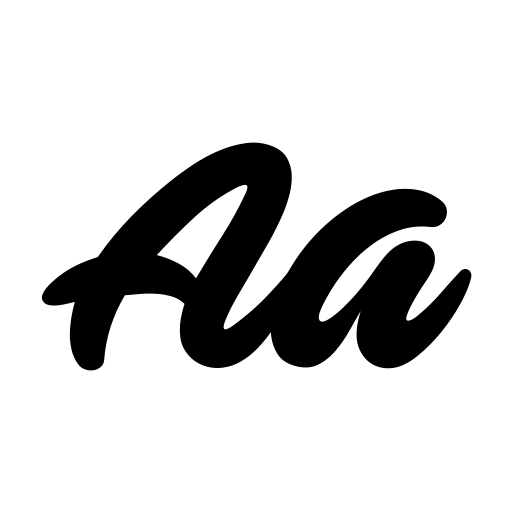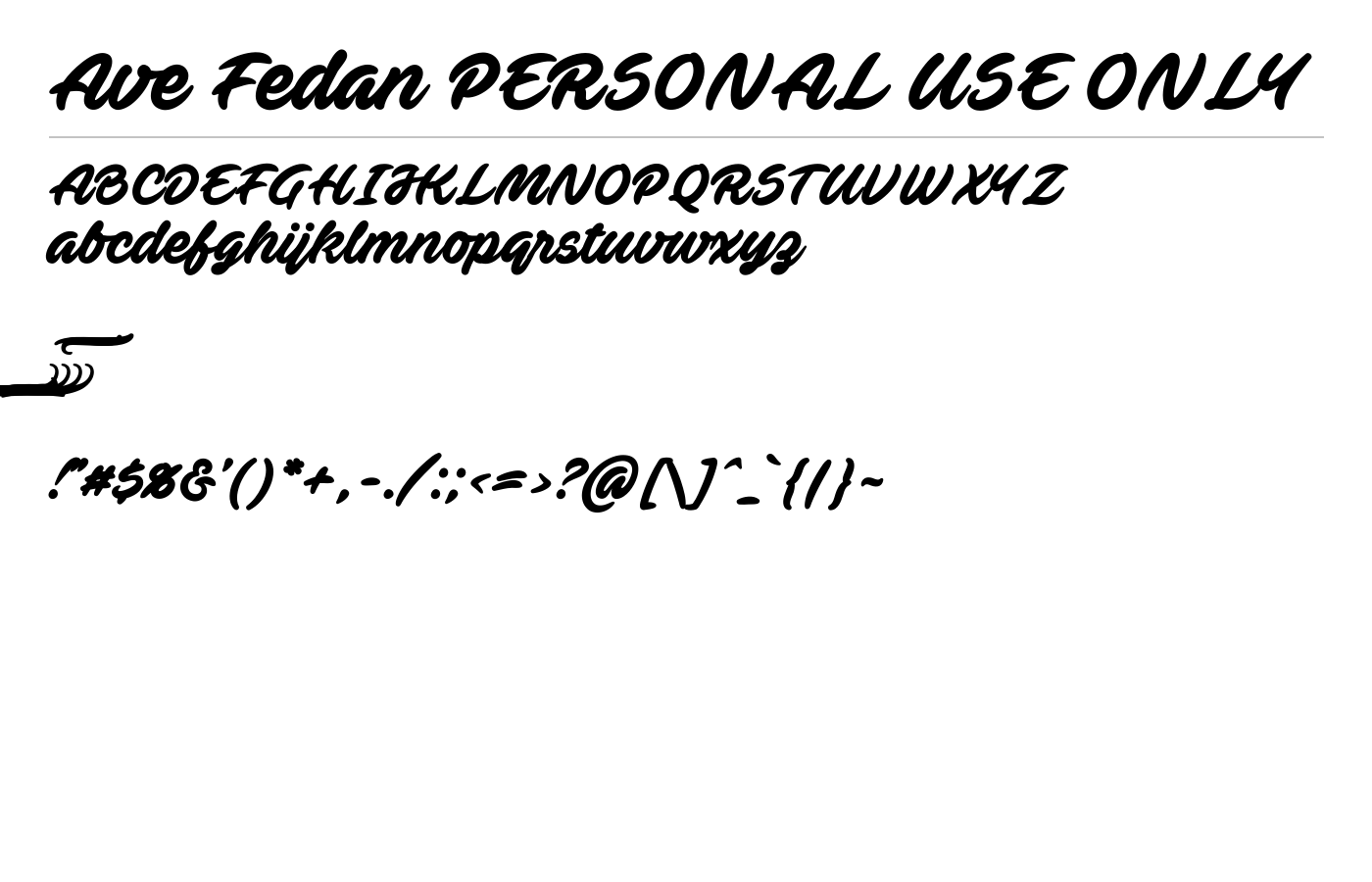
Ave Fedan is a bold, playful script font with a smooth, flowing style that mimics natural handwriting with a modern twist. Its rounded, connected letterforms and lively curves make it ideal for casual, friendly designs, such as invitations, logos, and branding that seek a personal and approachable feel. This font works best in display settings where its energetic personality can shine without sacrificing legibility.
Ave Fedan PERSONAL USE ONLY Font
About Ave Fedan PERSONAL USE ONLY Font